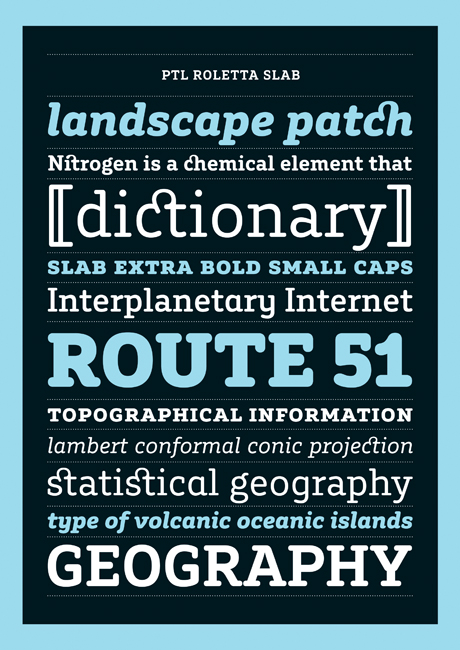
Category: Sans serif/Slab serif
Andrea Tinnes is a Berlin-based type and graphic designer, who studied in Germany and the US and has taught typography at universities in Germany and Norway. The round terminals of her 2010 typeface PTL Roletta may hint at 1970s Letraset typefaces such as Frankfurter, but Roletta’s 21st century typographic features imbue it with a sophisticated and confident visual presence.
What inspired the design of PTL Roletta?
PTL Roletta was originally conceived as a corporate typeface during a 2003 pitch for the ‘Rundfunk Berlin Brandenburg’ (Berlin-Brandenburg Broadcasting). The main idea behind the typeface was a synthesis of contrasts, combining rectangular with round elements, as well as slightly condensed capitals with slightly wide lowercase letters. The pitch was not successful, but I continued to develop the typeface and decided in 2006 to apply only round terminals to create a family of five weights with many advanced typographic features: small caps, non-lining, lining and tabular figures, alternate characters, arrows, ligatures, symbols, ornaments and mathematical signs.
What was the first character you designed and why?
I began by sketching key lowercase characters such as the ‘n’ and ‘o’, as well as the ‘h’ and ‘b’ to test my initial design idea, to explore various details and to set parameters like weight, x-height, ascenders, descenders and metrics. I continued with the letters needed to set the word ‘Hamburg’, then added letters, printed out single words in various point sizes, corrected details, set paragraphs and adjusted spacing.
Is it important for a typeface to have distinctive characters to make it memorable?
That’s the biggest challenge in type design, to be distinctive without being too idiosyncratic. If you’re not distinctive enough, your typeface will look like many other typefaces. If you’re too idiosyncratic, typographers will soon tire of looking at your typeface. Roletta’s letter shapes are functional and, to a certain extent, conventional. When used at large sizes, however, Roletta reveals the strong personality of its details, especially the rounded terminals.
What design challenges did you confront and how did you resolve them?
One of the biggest challenges was the shift of software. I started Roletta in 2003 using
Fontographer, which has limited magnification, but then I switched to FontLab and appreciated its ability to zoom very close to the vector points. I worked on Roletta over the course of seven years from the initial sketches and its first release as a custom font family to its final release by the font label primetype in 2010.
What do you see as the typeface’s ideal uses?
In 2007, Eye magazine used Roletta as the main typeface for the ‘typography special edition’, including a feature article about me and my work. I suppose for any type designer that is an ideal use, to have an article about one’s own work set in your own typeface. In contrast to a static piece of work, typefaces are highly dynamic and, when used by others, they assume a life of their own.
Where did the name of the typeface come from and what is its significance? Because I was designing a round typeface, I started to play with the words ‘round’ and ‘rolling’ and ‘letter’ and after a while ‘Roletta’ was born.